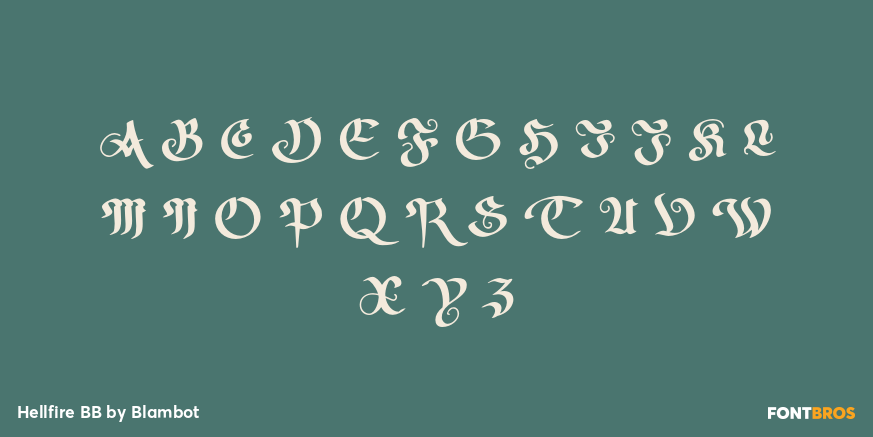
Hellfire BB
Font Family by Blambot
An unconventional Gothic typeface with decorative caps and a whiff of fire and brimstone!
Comes with a devilish compliment of European characters.